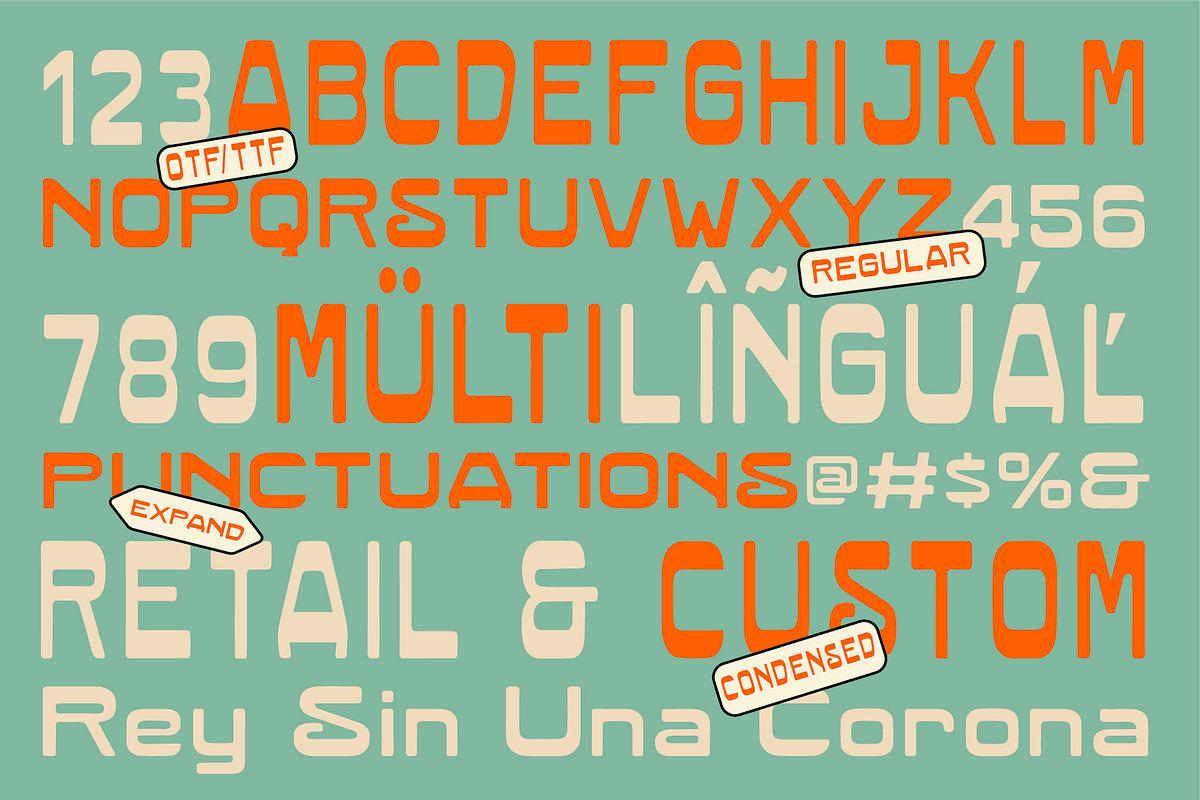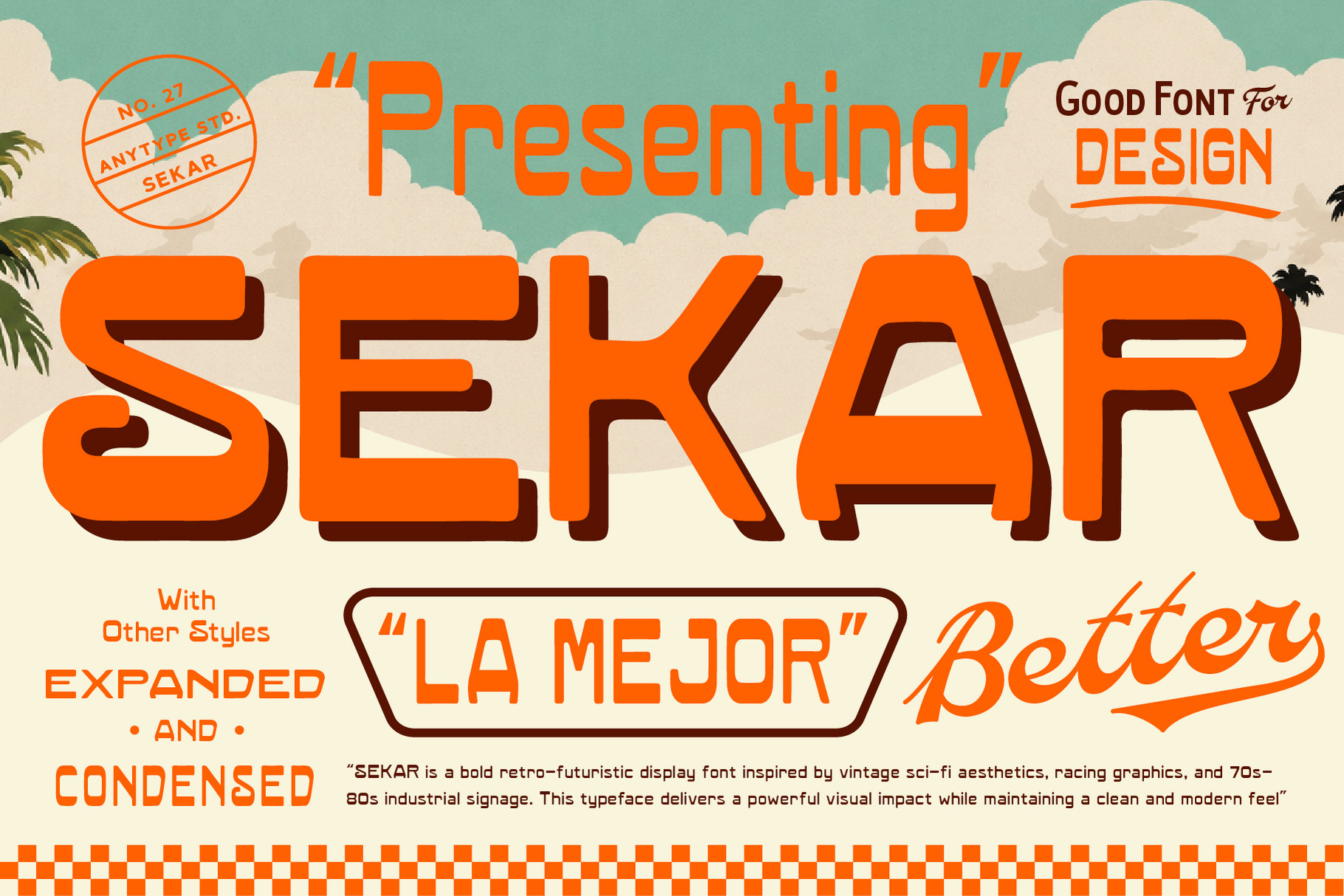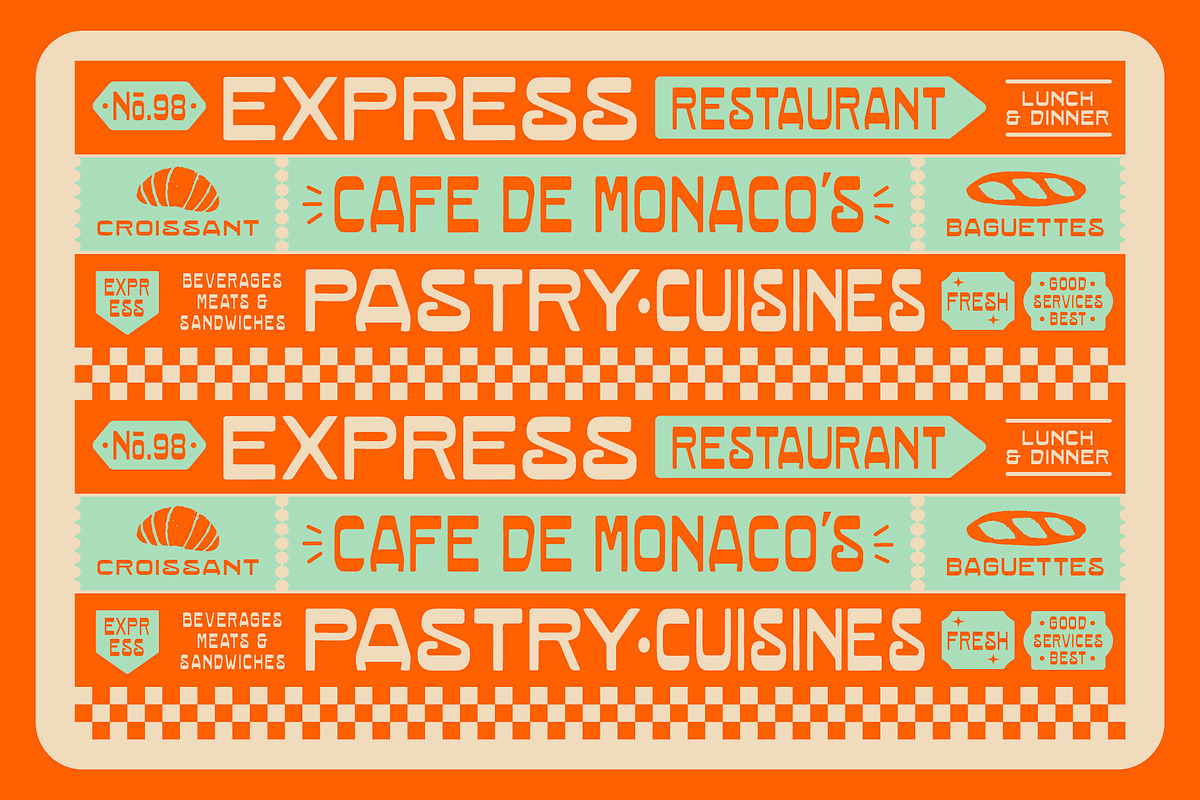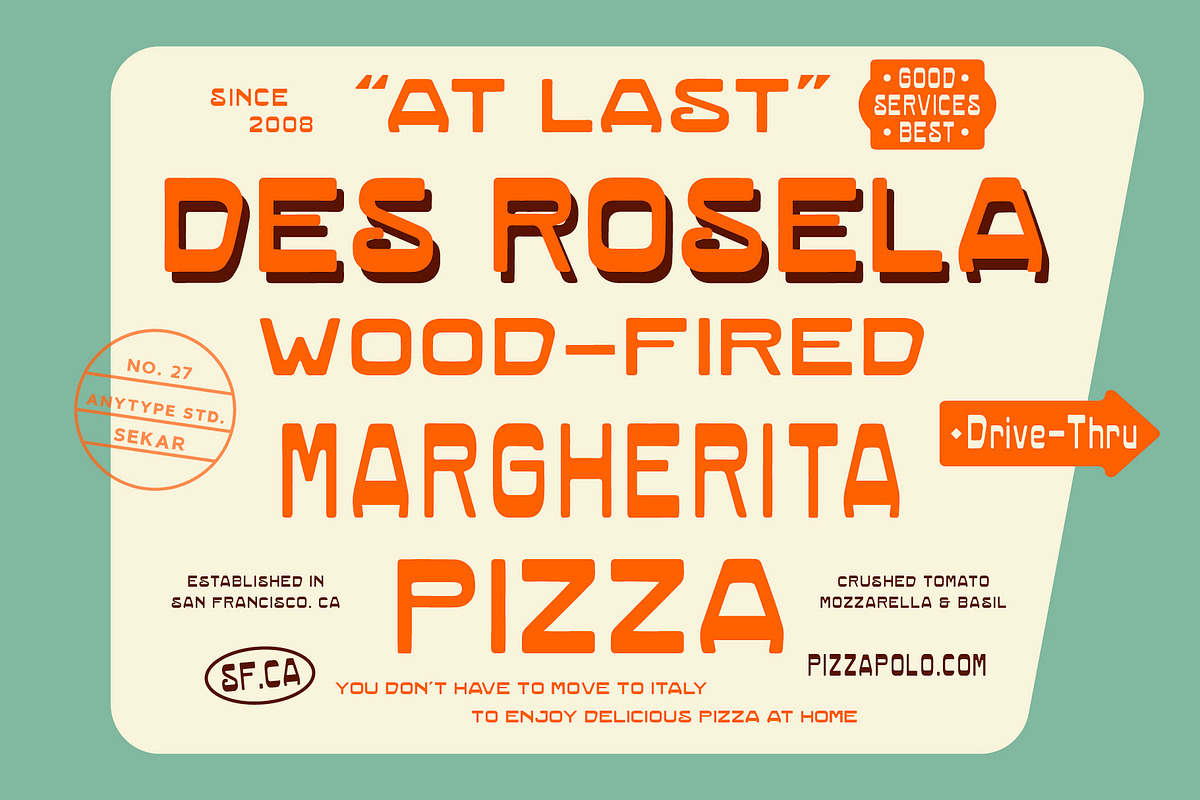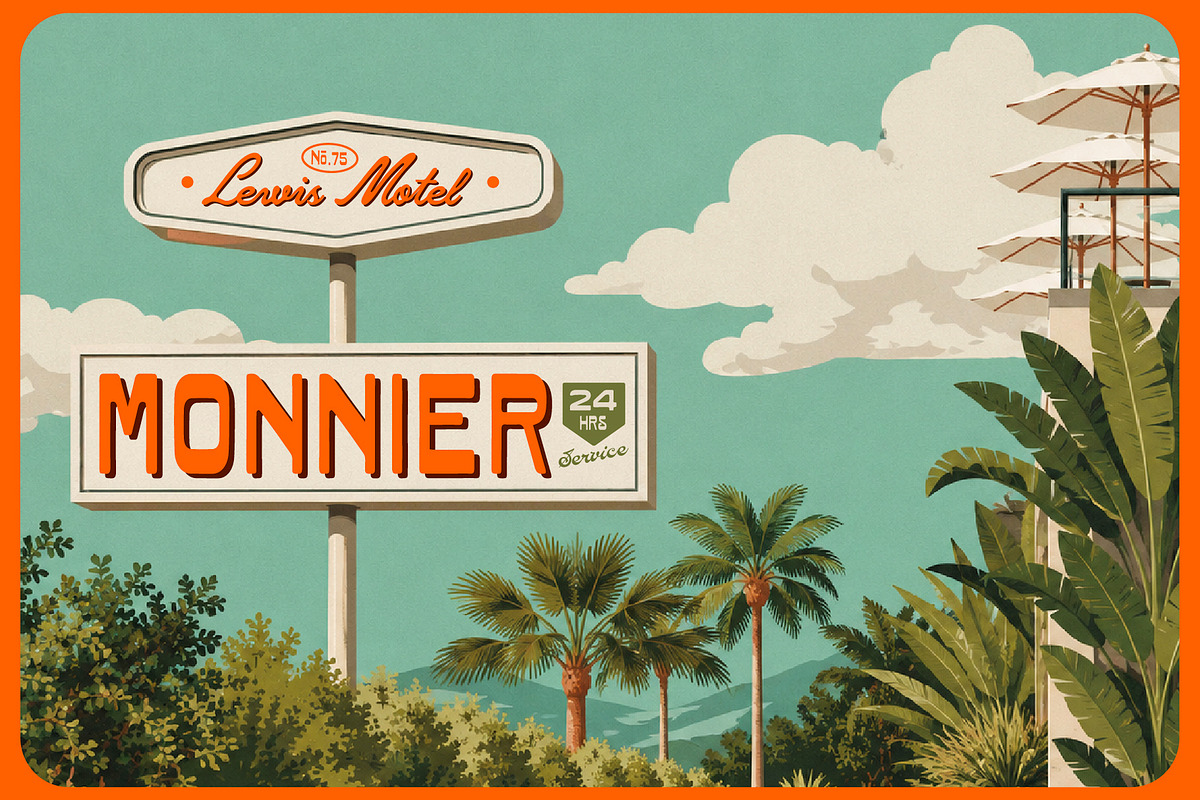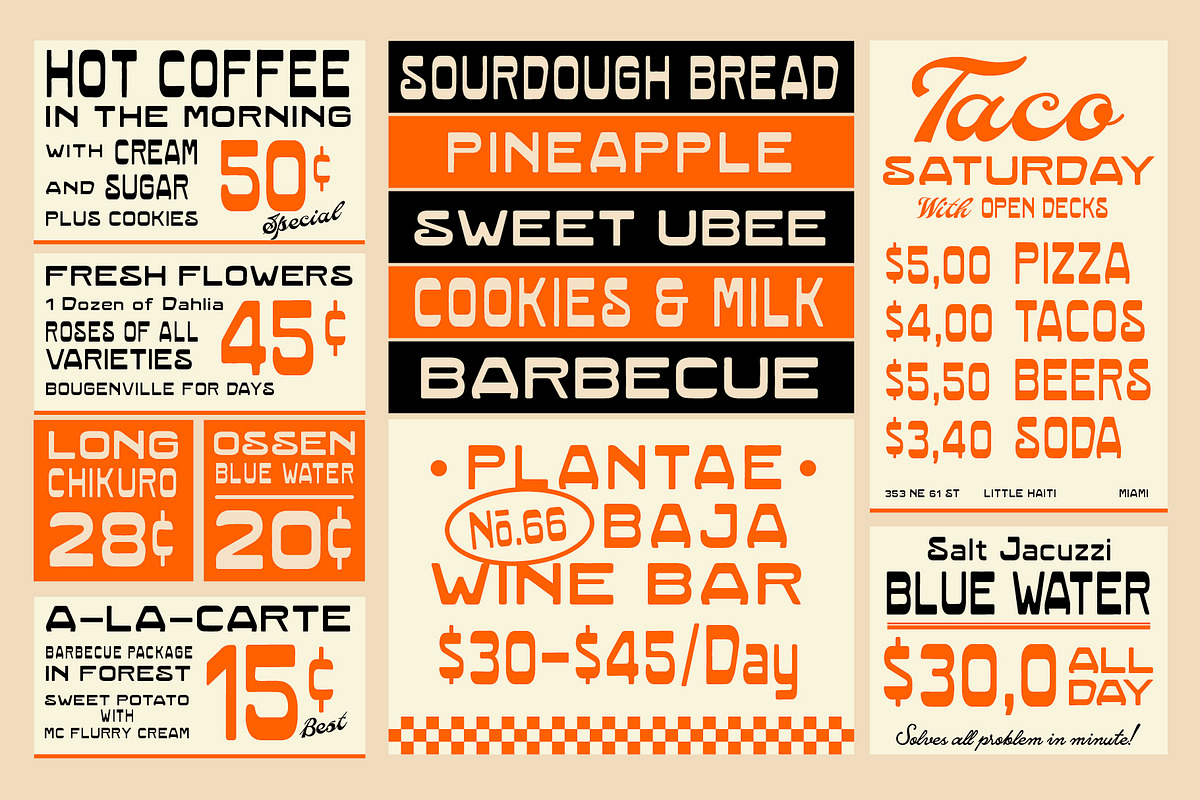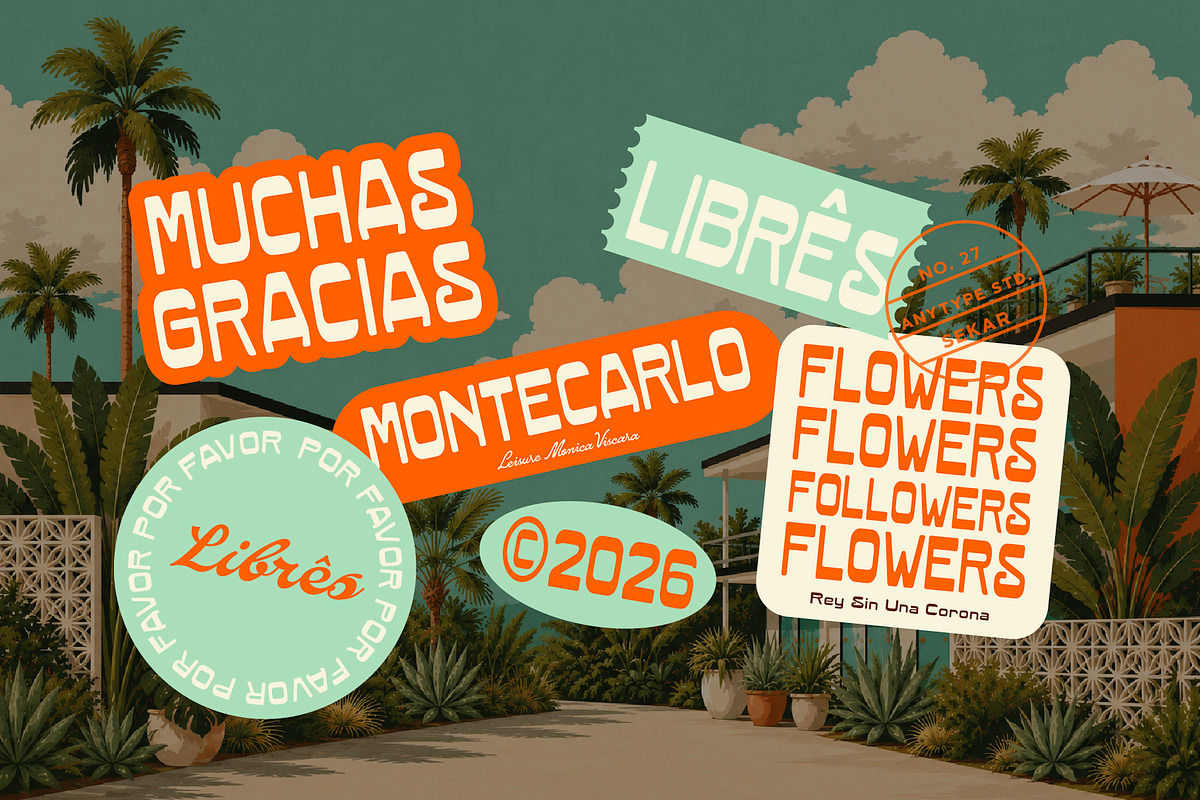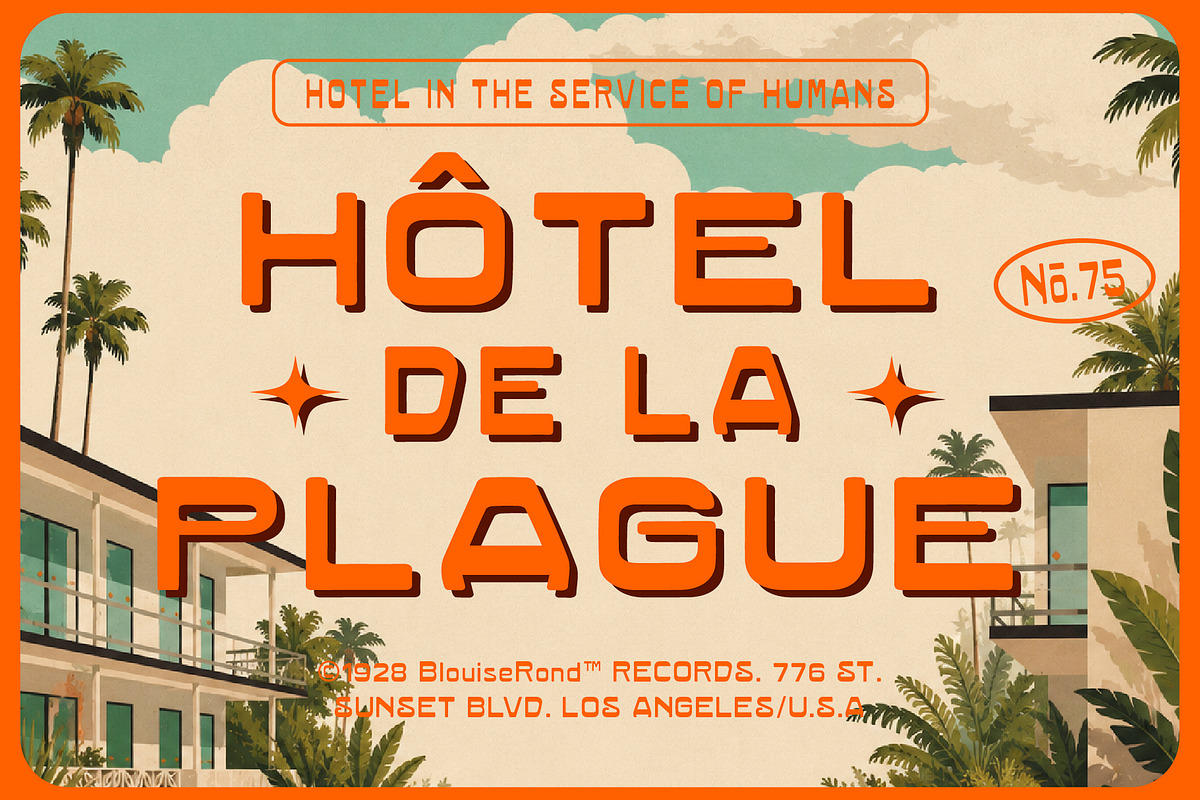
SEKAR — Retro Display Font
SEKAR is a bold retro-futuristic display font inspired by vintage sci-fi aesthetics, racing graphics, and 70s–80s industrial signage. Designed with smooth rounded corners and strong geometric construction, this typeface delivers a powerful visual impact while maintaining a clean and modern feel.
Its unique character shapes make SEKAR perfect for logos, posters, album covers, branding, packaging, headlines, apparel, gaming visuals, automotive themes, and futuristic design projects.
Whether you're creating a nostalgic retro concept or a modern techno-inspired layout, SEKAR adds a distinctive personality that instantly stands out.
Uppercase & Lowercase Letters
Bold Retro Style
Smooth Rounded Edges
Poster & Headlines
Automotive Branding
Retro Futuristic Projects
Gaming & Esports
Apparel & Merchandise
SEKAR combines vintage energy with futuristic precision — making it a versatile display font for creators who want something bold, unique, and memorable.